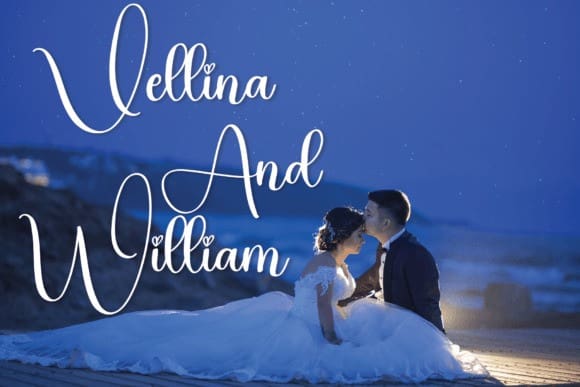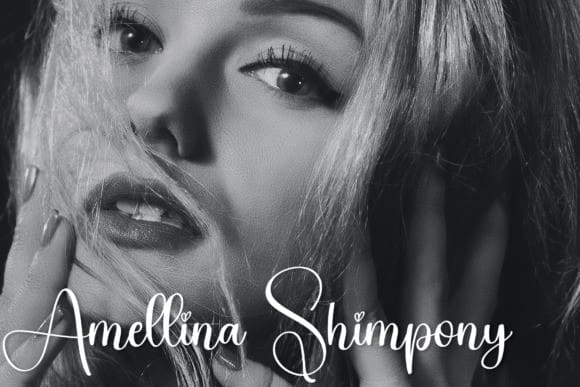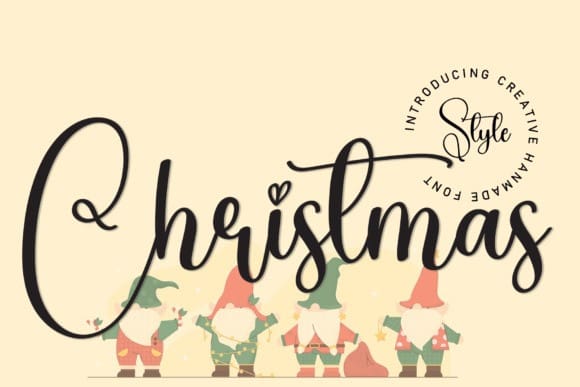
Christmas Style Script Typeface
Christmas Style Script Font is a stylish handwritten script font that exudes elegance and charm with its flowing, graceful curves. Perfect for invitations, logos, and branding, it adds a personal and sophisticated touch to any design. The font’s delicate strokes bring warmth and creativity to your projects.